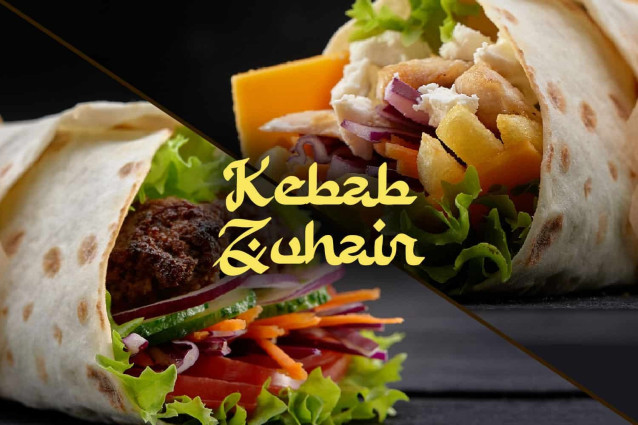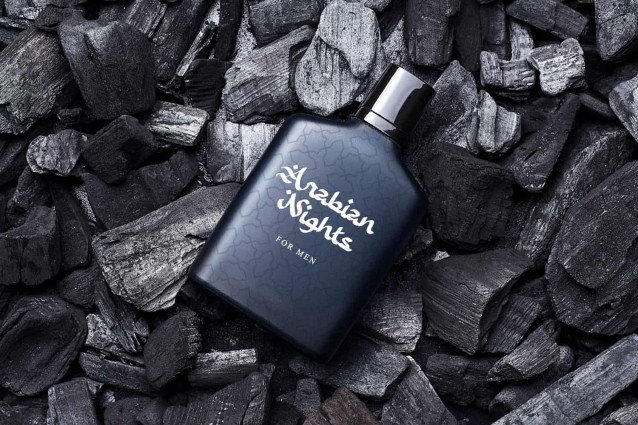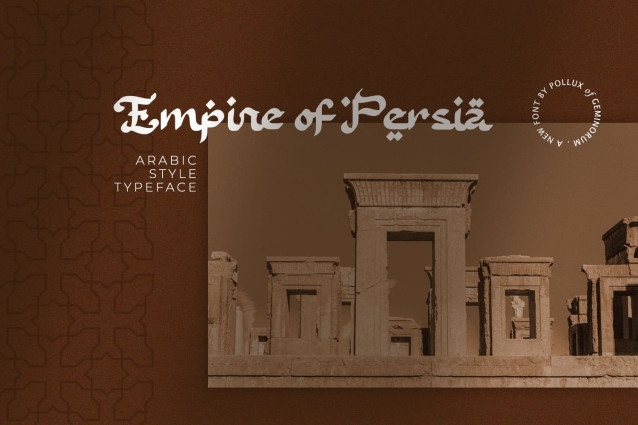
Empire Of Persia Font
Empire Of Persia Font, an unique font in arabic style. Inspired from beautiful arabian calligraphy, this font is suitable for any islamic or Middle East content. Perfect for logo, branding, book cover, wedding invitation, poster, banner, flyer, video, TVC, etc. It has Open Type features so you have many style options that you can access them from designing software with open type panel.